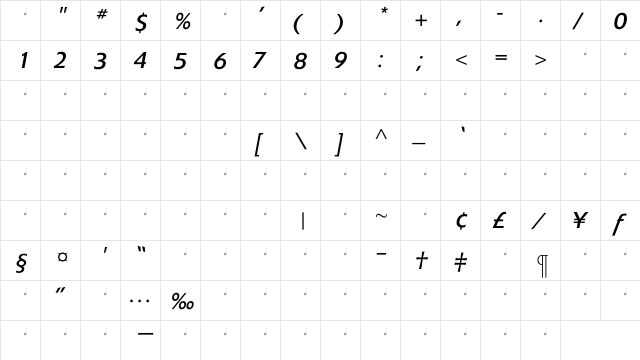
ExtensionBookItalicTab Regular
Design Context for ExtensionBookItalicTab Typeface
ExtensionBookItalicTab takes a measured approach to typography — its balanced proportions and neutral character make it a reliable workhorse for both digital and print work. The dynamic lean of this cut emphasises speed and emphasis in any layout.
Pro Tip: Try ExtensionBookItalicTab for annotation and caption copy alongside an upright companion — the contrast in angle creates a dynamic but ordered typographic system.